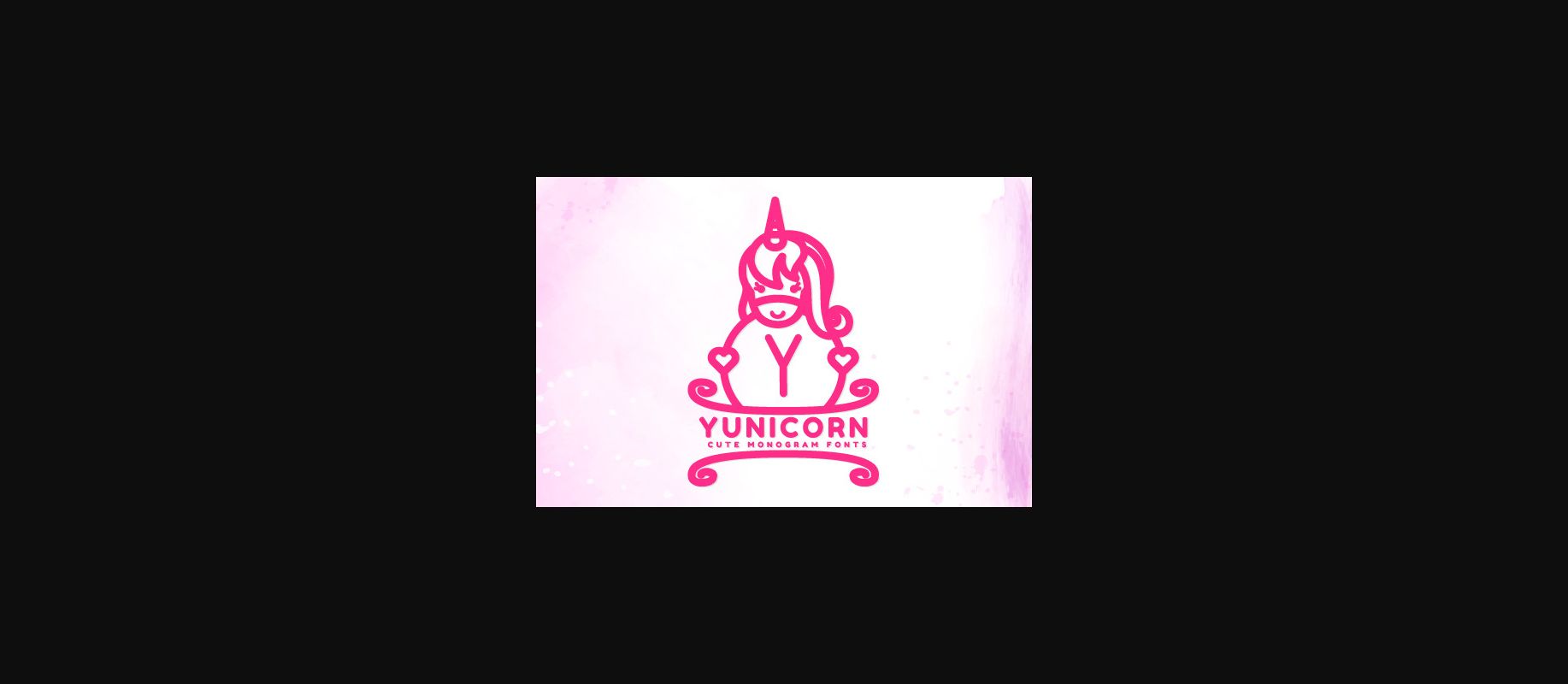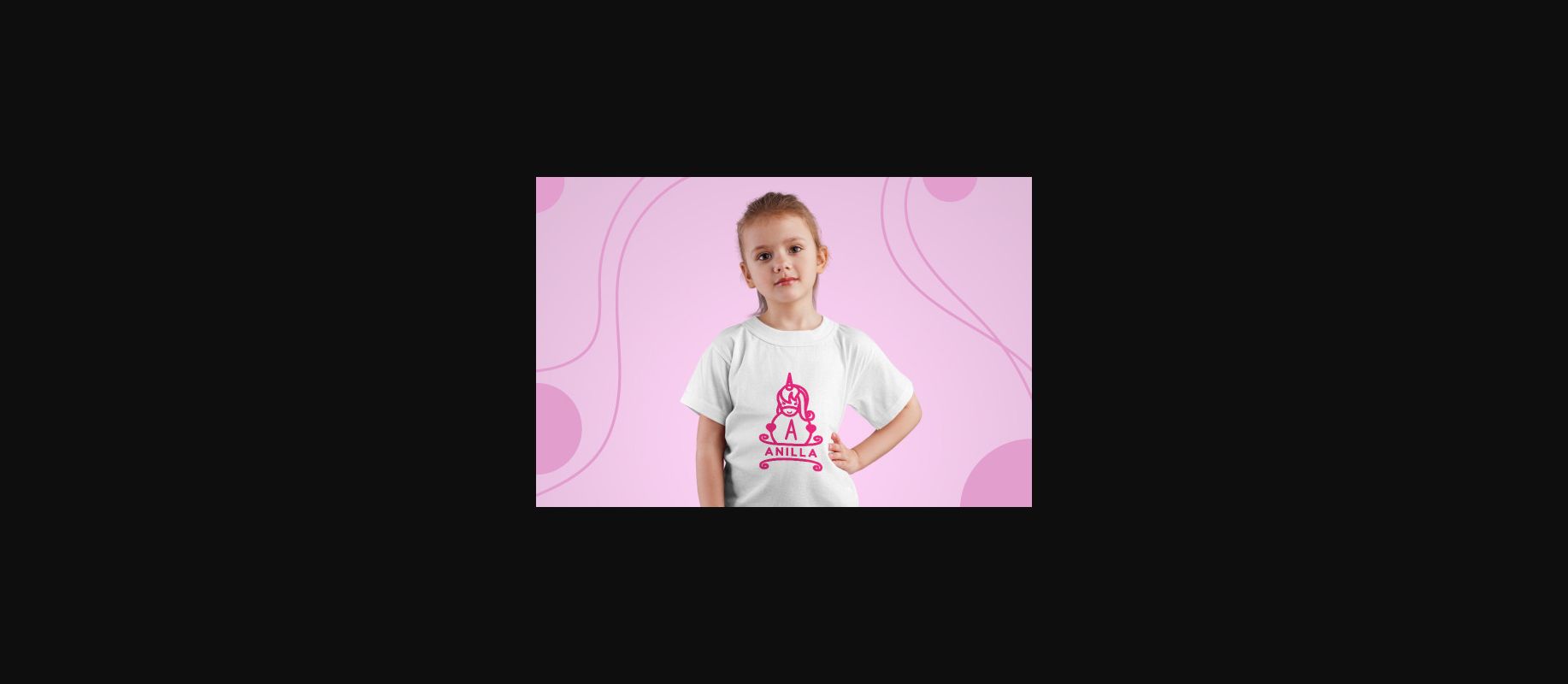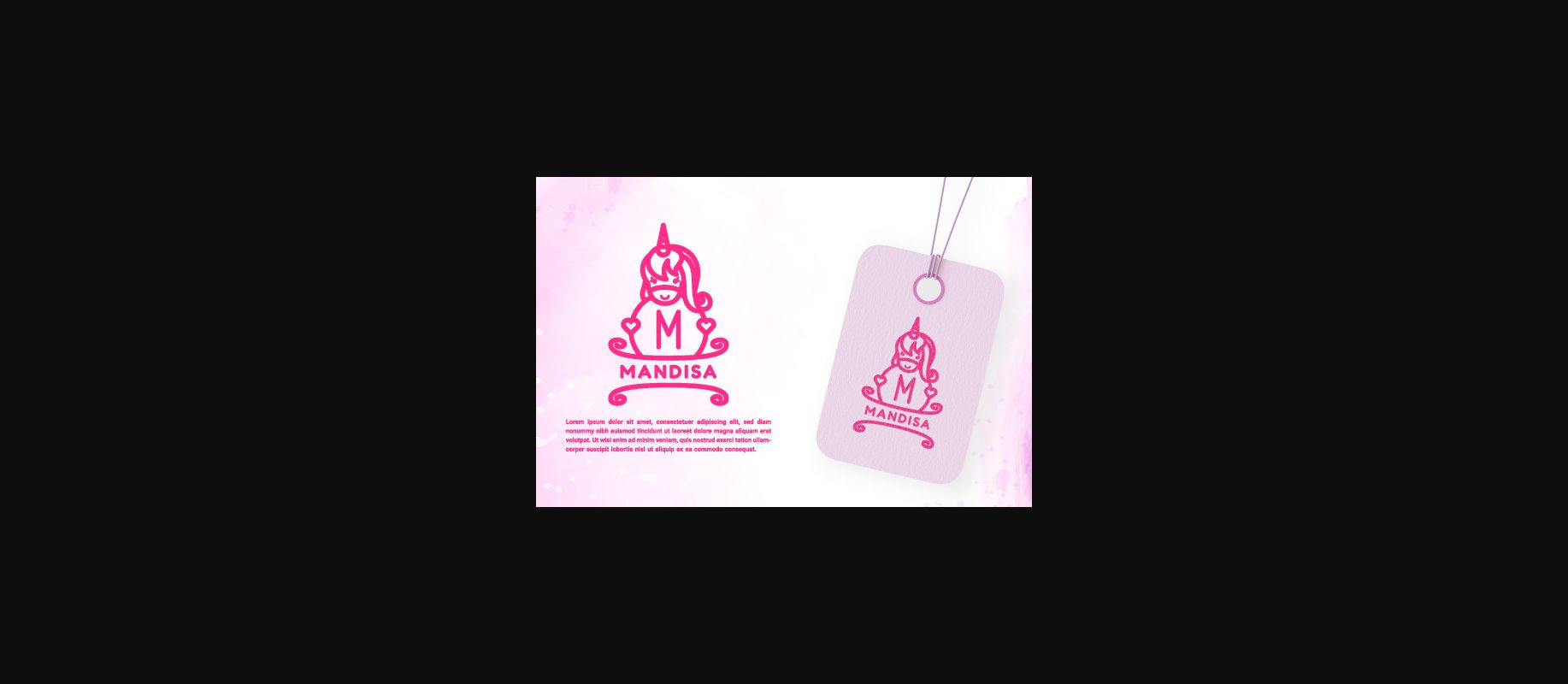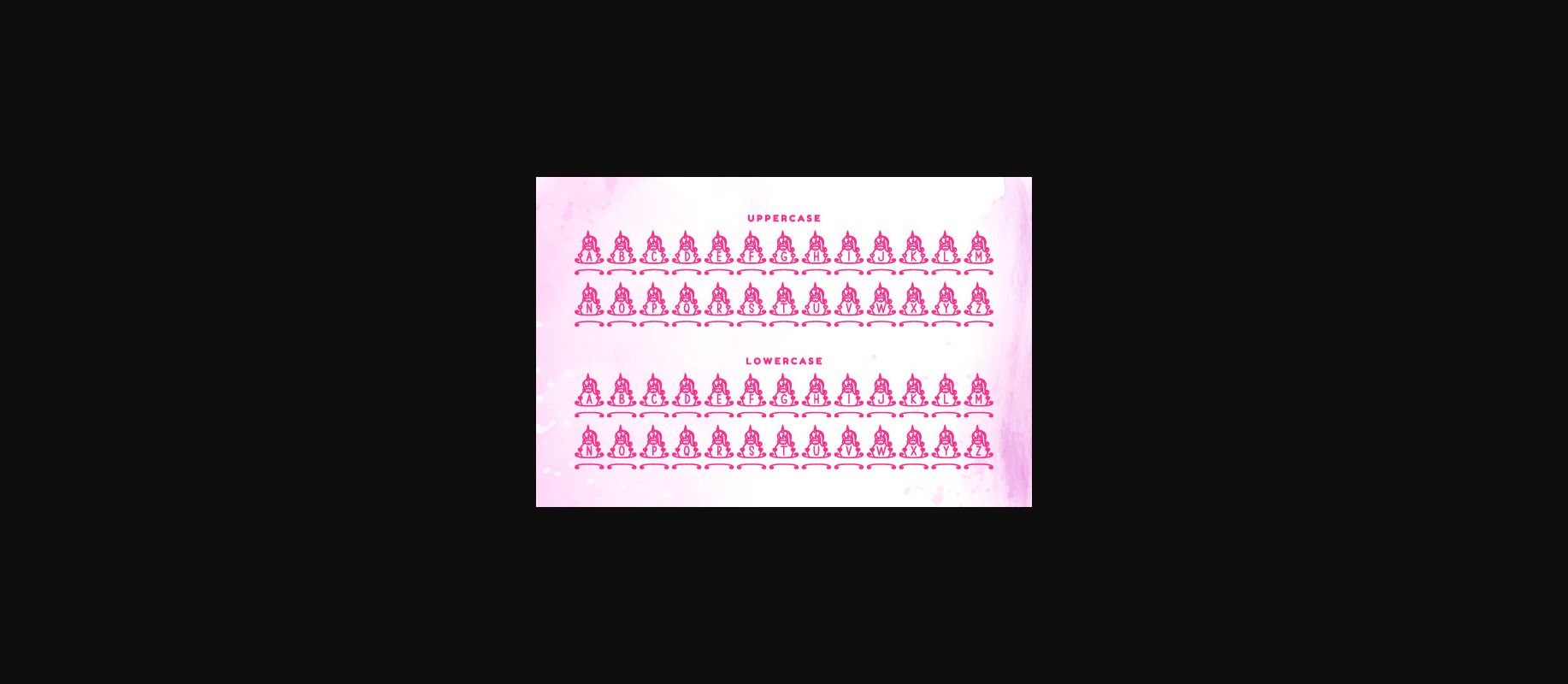
HomeDecorative FontsYunicorn Font Decorative Fonts Yunicorn Font FacebookTwitterPinterestWhatsApp 1 of 6 ... Yunicorn Font Poster 2... Yunicorn Font Poster 3... Yunicorn Font Poster 4... Yunicorn Font Poster 5... Yunicorn Font Poster 6... About Yunicorn Font Yunicorn is a charming decorative font. Fall in love with its authentic feel and use it to create gorgeous invitations, beautiful stationary art, eye-catching social media posts, and cute greeting cards. DOWNLOAD NOW People also explored Magic Squad Font Backhand Font Norman Stencil Balina Font Southern Soul Font Gwyneth Font Belly Molly Font Dark Half BTN Monerd Font 166 0 TagsYunicorn Font Previous articleNautical FontNext articleTracing Font LEAVE A REPLY Cancel reply Comment: Please enter your comment! Name:* Please enter your name here Email:* You have entered an incorrect email address! Please enter your email address here Website: Save my name, email, and website in this browser for the next time I comment. Personal Use Free Boston Traffic Personal Use Free Read more about this font Osaka Personal Use Free Read more about this font Numberpile Personal Use Free Read more about this font Retro Poster Personal Use Free Read more about this font BLOG Free Fonts Risk: Why Free Fonts Can Be Dangerous for Designers Free Fonts Risk: Why Free Fonts Can Be Dangerous for Designers Using free fonts is a common practice in web and graphic design. However, the... Free vs Paid Fonts: Why Investing in Premium Fonts Is Worth It Top 7 Google Fonts Alternatives for Faster and Privacy-Friendly Web Design (2025) Transform Your Website: Elevate Your Typography with 7 Best Web Font Generators